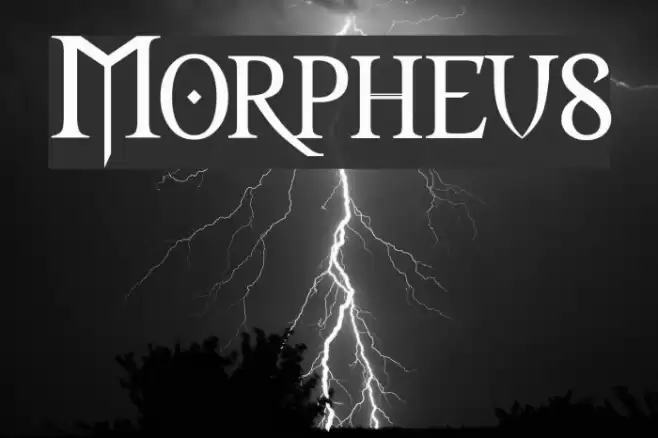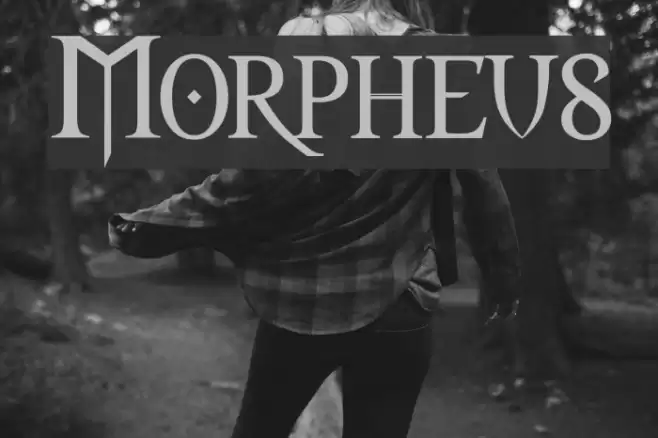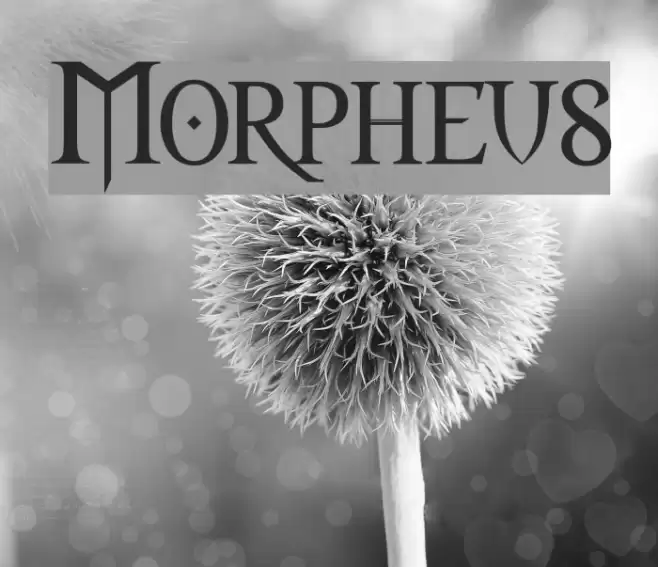
Morpheus Font
Morpheus Description
This font features a distinctive and elegant style with a medieval flair, characterized by sharp serifs and unique letterforms that give it a dramatic and artistic appearance. The uppercase letters are bold and commanding, while the lowercase letters maintain a consistent style with slightly more subtle curves. The numerals are designed to match the overall aesthetic, providing a cohesive look across all characters. Special characters are included, maintaining the same stylistic elements, making this font versatile for various uses. The overall design is reminiscent of historical scripts, yet it maintains a modern edge, making it suitable for both traditional and contemporary projects.
A dramatic, medieval-inspired serif font with sharp serifs and unique letterforms from Uncategorized fonts.
- Proposed Projects: Ideal for fantasy book covers, historical themed posters, video game titles, and branding for luxury products.